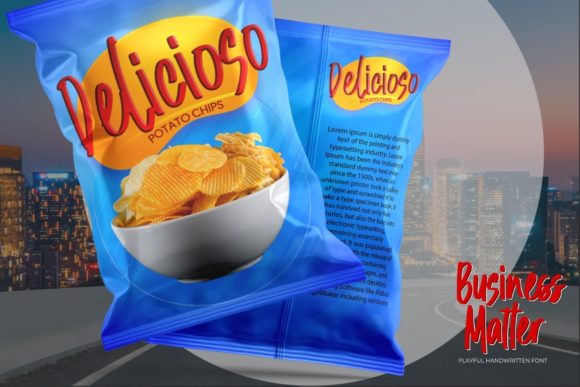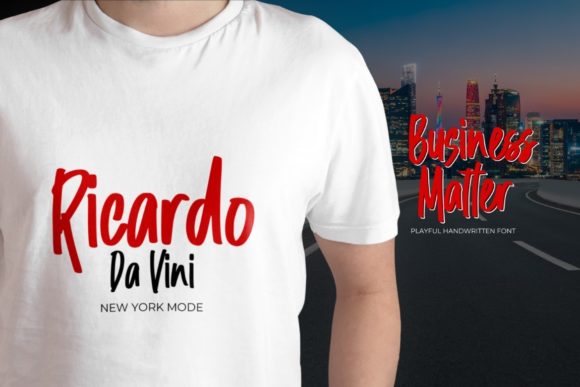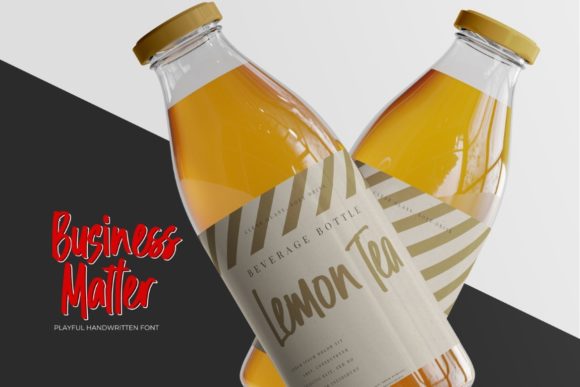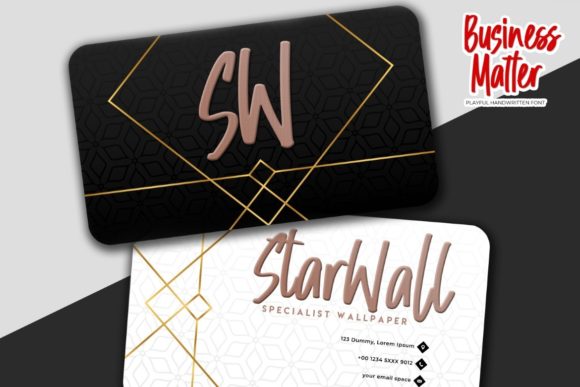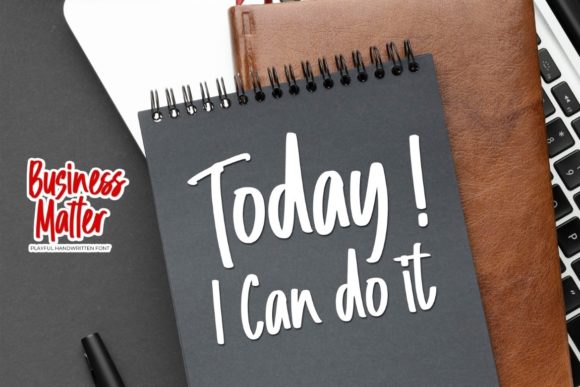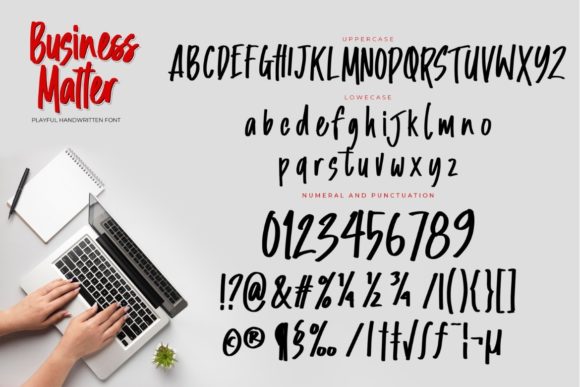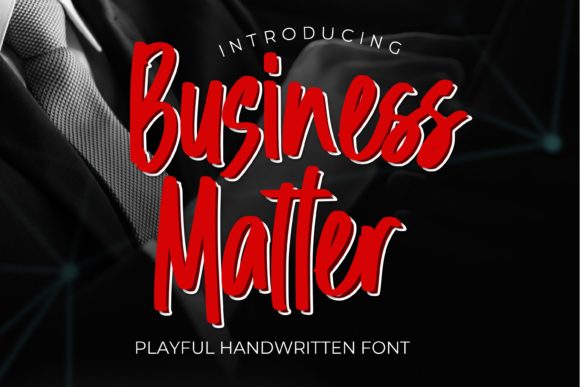
Introducing Business Matter Font: Add a Touch of Playfulness to Your Designs
Are you tired of using the same old fonts in your designs? Do you want to add a touch of modernity and uniqueness to your projects? Look no further than Business Matter Font, a playful handwritten font that’s perfect for designers and crafters alike. In this article, we’ll explore the features and benefits of Business Matter Font, and show you how it can elevate your designs to the next level.
What is Business Matter Font?
Business Matter Font is a carefully crafted handwritten font that’s designed to make your designs look modern, unique, and fun. Its playful and elegant style makes it perfect for a wide range of applications, from labels and quotes to posters and DIY projects. With Business Matter Font, you can add a personal touch to your designs and make them stand out from the crowd.
Features of Business Matter Font
- Playful and Handwritten Style: Business Matter Font has a playful and handwritten style that’s perfect for designs that require a personal touch.
- Modern and Unique: This font is designed to make your designs look modern and unique, setting them apart from the usual boring fonts.
- Versatile: Business Matter Font is perfect for a wide range of applications, including labels, quotes, posters, DIY projects, branding, packaging, greeting cards, websites, photography overlays, signs, window art, scrapbooking, tags, and more.
Benefits of Using Business Matter Font
So why should you use Business Matter Font in your designs? Here are just a few benefits:
- Adds a Personal Touch: Business Matter Font adds a personal touch to your designs, making them more relatable and engaging.
- Increases Creativity: With Business Matter Font, you can experiment with different designs and styles, unleashing your creativity and imagination.
- Perfect for Branding: This font is perfect for branding and packaging, helping you to create a unique and recognizable identity for your business.
- Great for DIY Projects: Business Matter Font is also great for DIY projects, such as scrapbooking, card making, and other crafts.
Use Cases for Business Matter Font
So what can you use Business Matter Font for? Here are just a few ideas:
- Labels and Quotes: Use Business Matter Font to create eye-catching labels and quotes for your designs.
- Posters and Flyers: This font is perfect for creating modern and unique posters and flyers.
- DIY Projects: Business Matter Font is great for DIY projects, such as scrapbooking, card making, and other crafts.
- Branding and Packaging: Use this font to create a unique and recognizable identity for your business.
- Greeting Cards and Websites: Business Matter Font is also perfect for greeting cards, websites, photography overlays, signs, window art, and more.
Tips for Using Business Matter Font
Here are a few tips for using Business Matter Font:
- Experiment with Different Sizes and Colors: Try out different sizes and colors to see what works best for your design.
- Pair with Other Fonts: Business Matter Font pairs well with other fonts, so feel free to experiment with different combinations.
- Use for Headings and Titles: This font is perfect for headings and titles, adding a touch of elegance and sophistication to your designs.
In conclusion, Business Matter Font is a playful handwritten font that’s perfect for designers and crafters alike. Its modern and unique style makes it perfect for a wide range of applications, from labels and quotes to posters and DIY projects. With its ease of use and versatility, Business Matter Font is a must-have for anyone looking to add a touch of personality to their designs. So why wait? Download Business Matter Font today and start creating unique and engaging designs that will leave a lasting impression!